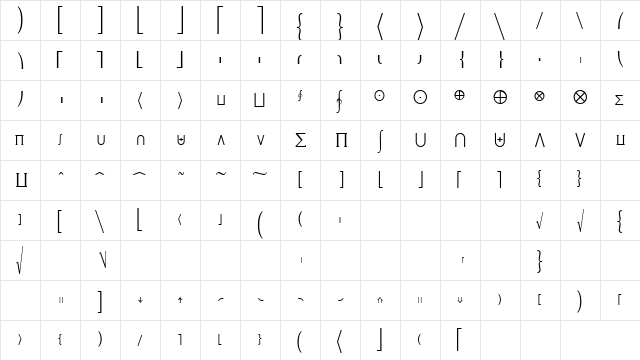
MachadoMathExtensionSSK Regular
Design Context for MachadoMathExtensionSSK Typeface
MachadoMathExtensionSSK takes a measured approach to typography — its balanced proportions and neutral character make it a reliable workhorse for both digital and print work.